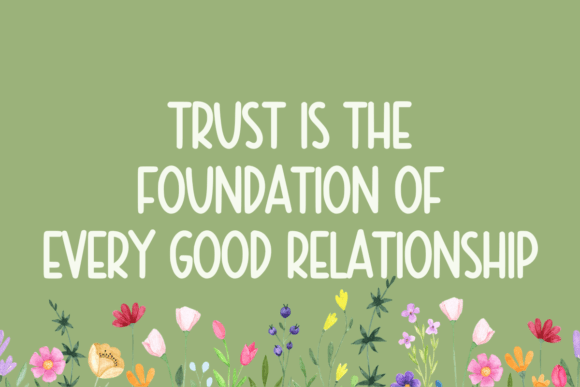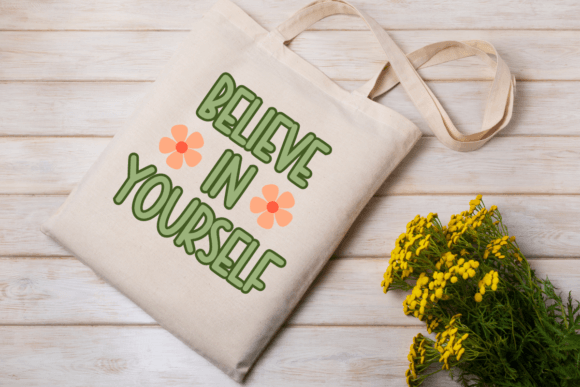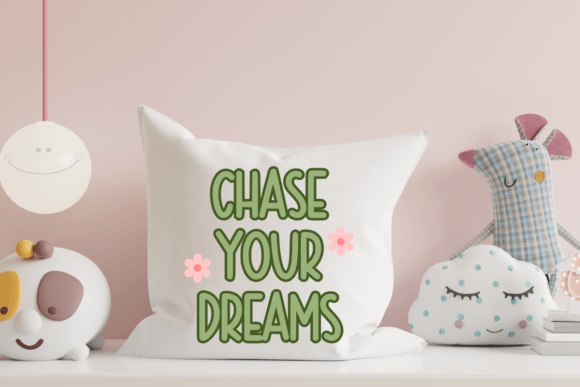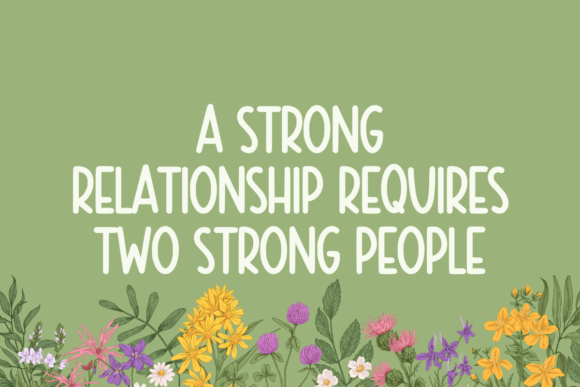
The Ultimate Guide to Free Hand Font: Adding a Touch of Whimsy to Your Designs
Have you ever been in the middle of a design project, and suddenly, you’re stuck on finding the perfect font? I recall a particularly frustrating experience while working on a Easter-themed party invitation. My client wanted something fun, quirky, and playful, but I just couldn’t seem to find the right fit. That’s when I stumbled upon the Free Hand Font – a charming, sans-serif font that added a touch of whimsy to my design.
An Honest Review of Free Hand Font
- ✨ The font’s quirky and charming personality makes it perfect for fun projects
- ✅ It’s a sans-serif font, making it easy to read and versatile for various designs
- 🎉 The font’s playful vibe is perfect for creating eye-catching posters, invitations, and social media posts
- 💻 It’s a great addition to any font library, especially for designers who love a friendly touch
While Free Hand Font is an amazing addition to any design project, there are a few things to keep in mind:
- ⚠️ The font may not be suitable for formal or professional projects, as it has a distinctly playful personality
- 🤔 Some users may find the font a bit too quirky or unconventional for their taste
A Practical Guide to Using Free Hand Font
The Backstory of Free Hand Font
Free Hand Font was designed with the intention of creating a fun, quirky font that would add a touch of whimsy to any design project. The designer wanted to create a font that was both charming and playful, making it perfect for Easter, back to school, wedding, party decorations, cute invitations, Fall, Halloween, Christmas, posters, blogs, clothing, kids-related designs, greeting cards, social media posts, and more.
| Font Name | Free Hand Font |
| Author | CraftedType Studio |
Q: What type of projects is Free Hand Font best suited for?
A: Free Hand Font is perfect for fun projects, such as party decorations, invitations, social media posts, and kids-related designs.
Q: Is Free Hand Font a script font?
A: No, Free Hand Font is a sans-serif font with a playful and quirky personality.